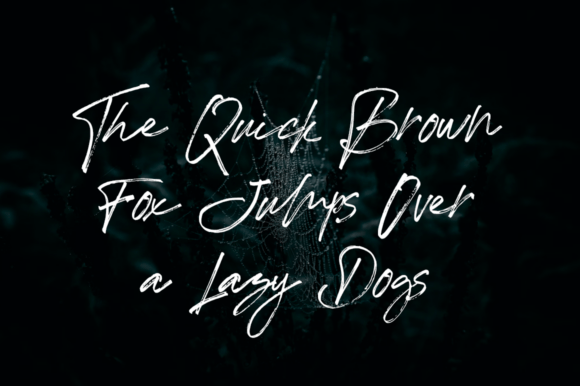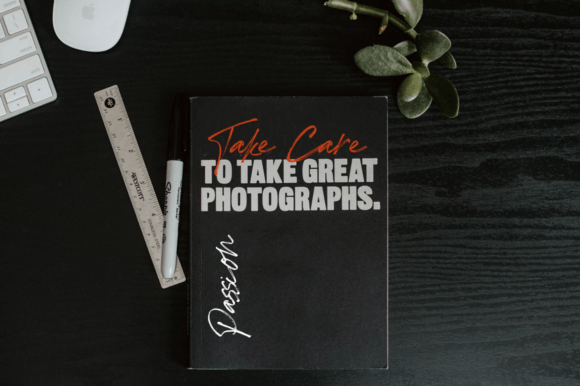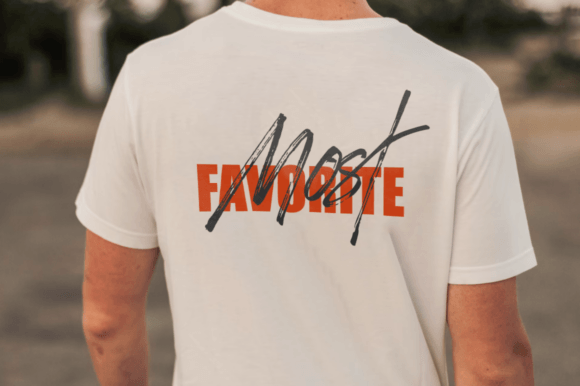
Introduction to Samparan Font
Have you ever stared at a blank canvas, searching for the perfect combination of words to bring your creative project to life? I’m sure we’ve all been there, pouring over fonts and layouts, trying to find that elusive spark that sets our design apart. For many designers, the Samparan Font has become a trusted companion in this quest, offering a timeless and elegant solution to elevate even the most mundane designs.
As a valuable design resource, Samparan Font is more than just a pretty face – it’s a versatile tool that can add a touch of sophistication to logos, branding, and quotes. With its unique and beautiful handwritten brush style, this font is sure to make your design come alive, whether you’re working on a free download or a high-quality commercial project.
Key Features of Samparan Font
- Features a transparent background, allowing for effortless customization and versatility.
- Designed to be highly legible, making it suitable for a wide range of applications, from print materials to digital displays.
- Unique characteristics include a clean and modern aesthetic, making it an excellent choice for designers seeking a sophisticated look.
Honest Review: Samparan Font
I recently had the chance to work with the Samparan Font on a creative project, and I must say, it’s a great addition to any design resource. One of the standout features of this font is its high quality and versatility. It’s perfect for any project that requires a clean and modern look. ✨
- One of the things that really impressed me about the Samparan Font is its transparent background. This makes it super easy to use in a variety of design scenarios, from web design to print materials.
- Another plus is the wide range of weights and styles available, allowing you to customize your design to suit your specific needs.
However, I do have to mention a few limitations. For one, the Samparan Font may not be suitable for projects that require a more playful or whimsical feel. Additionally, some users may find the font a bit too minimalist. ⚠️
Overall, I’m really impressed with the Samparan Font and would definitely recommend it to anyone looking for a high-quality, versatile design resource. Whether you’re working on a creative project or just need a reliable font for your design needs, the Samparan Font is definitely worth checking out.
Tips for Getting the Most Out of Samparan Font
Use Samparan Font in conjunction with other design elements to create a cohesive look. Experiment with different font sizes, colors, and effects to find the perfect combination for your creative project.
Samparan Font is perfect for use in brochures, flyers, business cards, and other marketing materials. It’s also great for use in digital projects such as presentations, websites, and social media graphics.